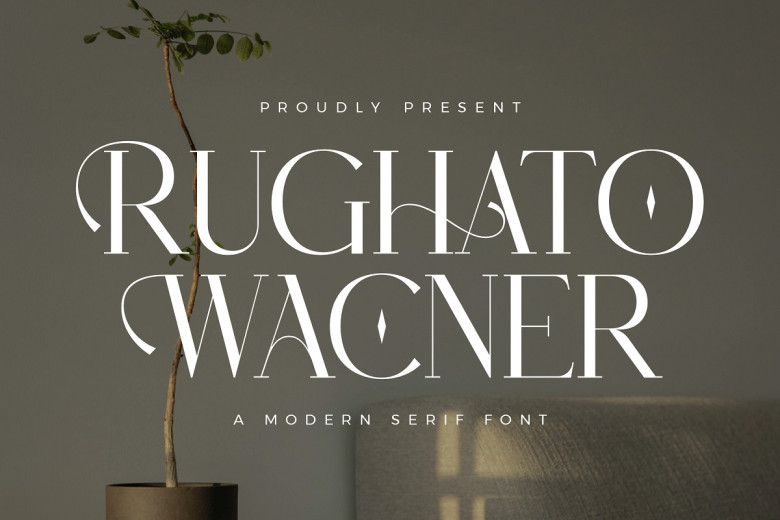
Rughato Wacner Font
RUGHATO WACNER is a timeless serif typeface that exudes contemporary style. Perfect for use in logo design, movie scripting or book writing projects, fashion label clothing lines, magazine letters or quotes among many other purposes, RUGHATO WACNER stands out in any environment due to its distinctive appearance and versatile use cases.
Rughato Wacner Serif Font